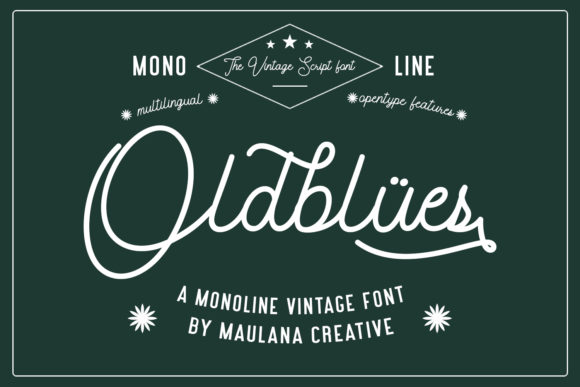
Welcome to the realm of Oldblues Font, where classic elegance meets modern grace. Immerse yourself in the captivating beauty of this vintage-styled duo font, meticulously crafted by the visionary Maulana Creative.
Indulge in the timeless charm of the sans serif, its sharp lines and confident strokes exuding an air of sophistication. Let your imagination soar with the alluring script, its graceful curves and whimsical flourishes adding a touch of whimsy to your creations.
Oldblues Font is not just a font; it's an artistic masterpiece designed to elevate your designs to unprecedented heights. Its versatile nature makes it a perfect choice for a myriad of projects, from captivating resumes that leave a lasting impression to mesmerizing logos that command attention.
Whether you're a seasoned designer or just starting your creative journey, Oldblues Font will ignite your imagination and empower you to create designs that truly stand out. Let its timeless allure and modern elegance transform your projects into works of art.